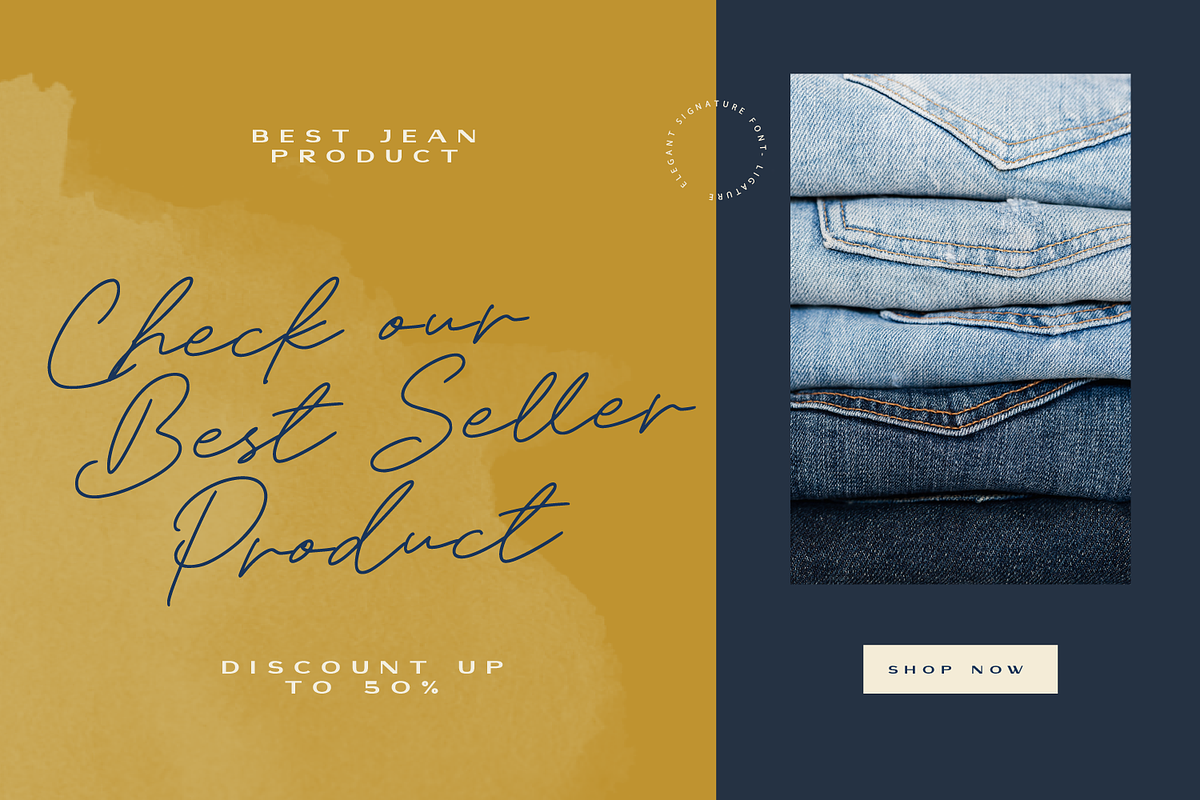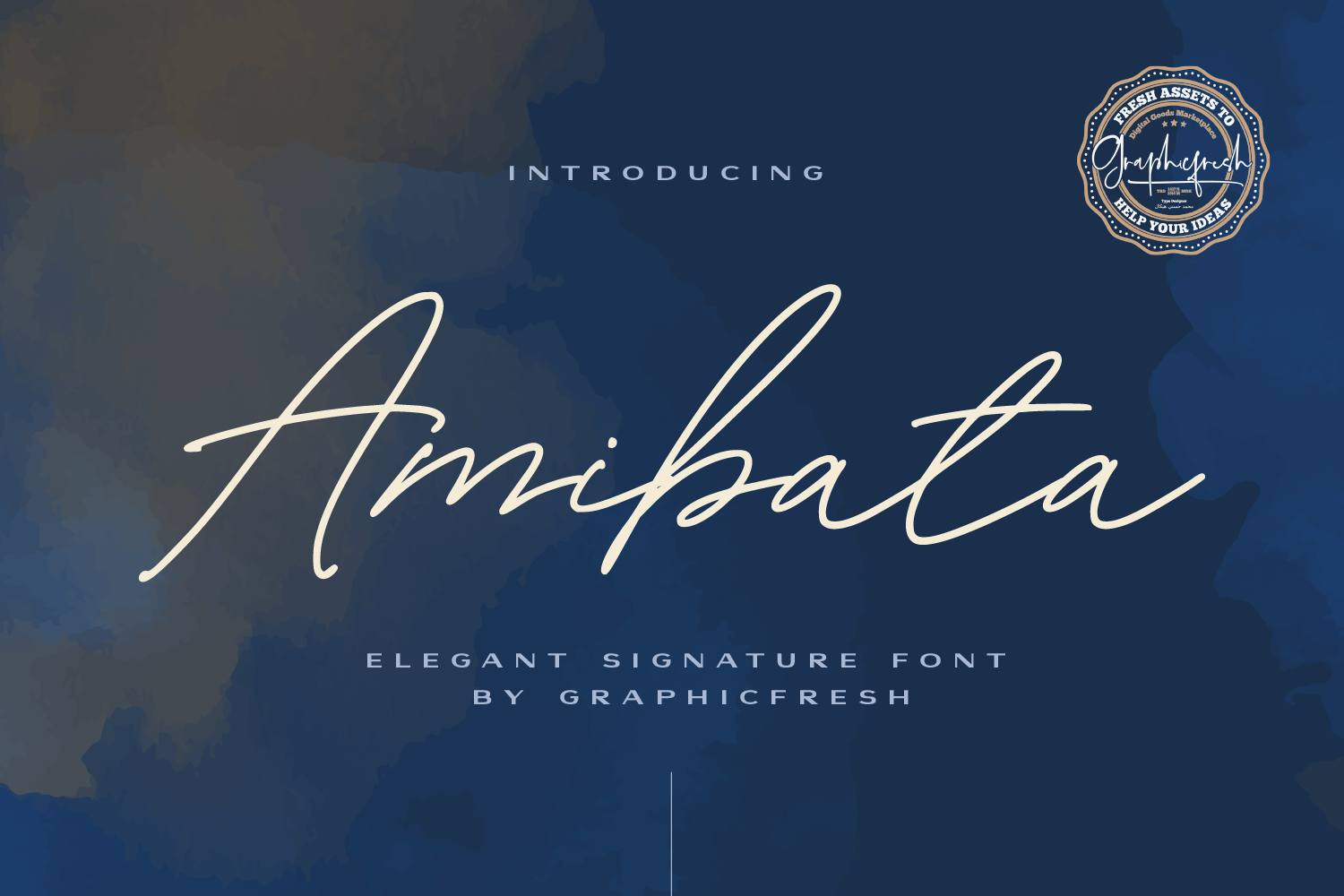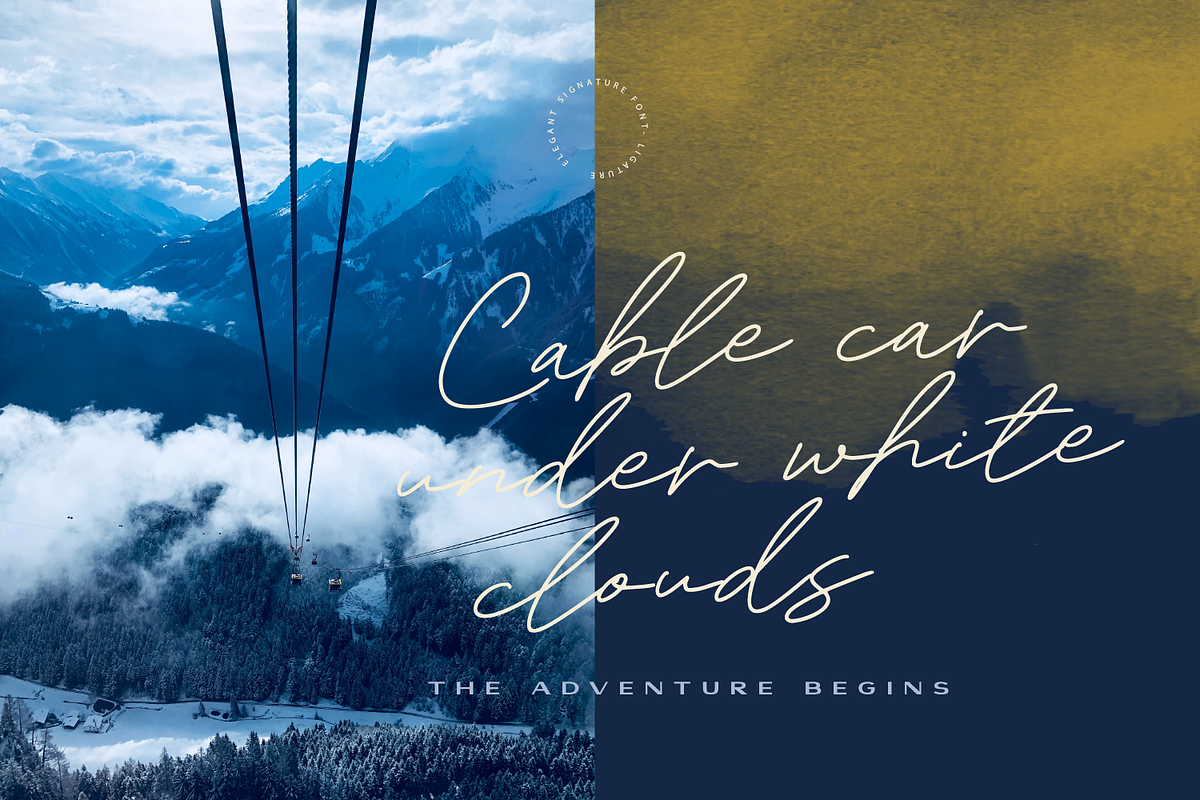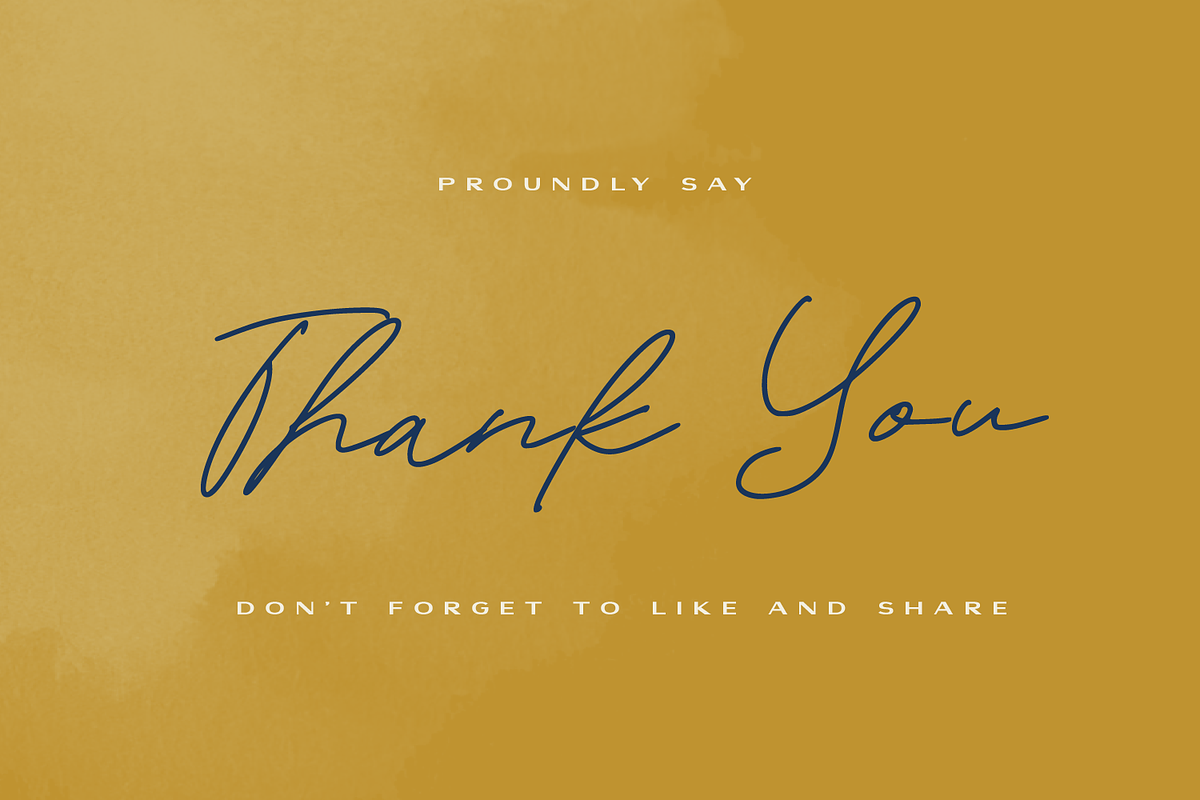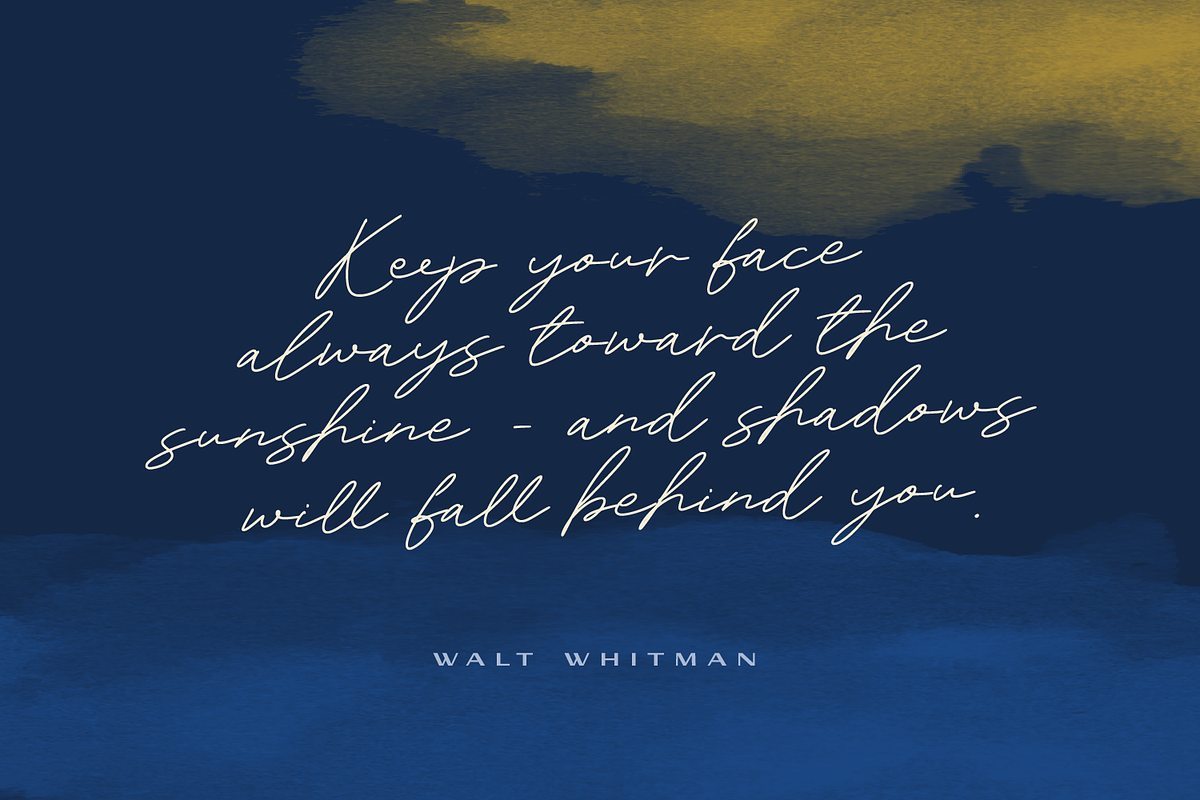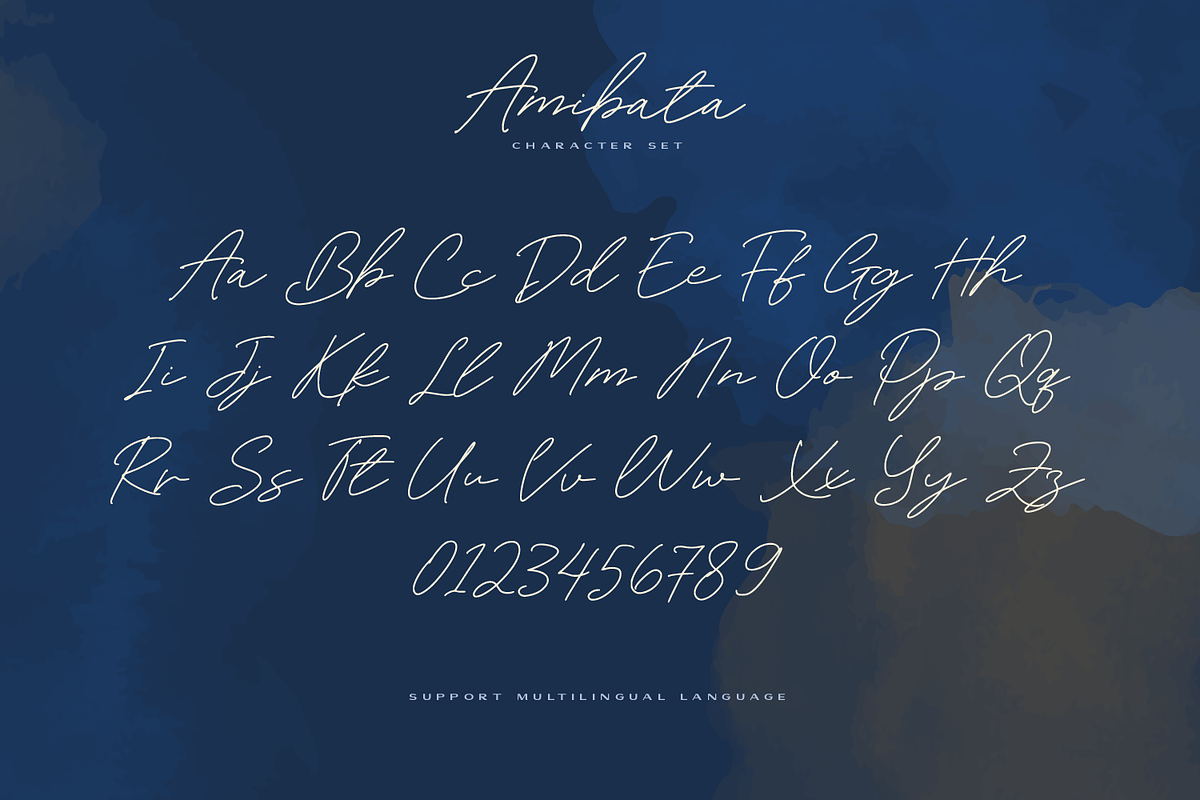
Amibata - Elegant Signature Font
Amibata - Elegant Signature Font. It comes with an elegant and modern style which is perfect to make any design stand out! This font is perfect for branding, wedding invites, magazines, mugs, business cards, quotes, posters, and more.
Amibata Type Features:
- Uppercase -Lowercase
- Suitable for Headlines, Logotypes, Signs, Posters, Letterhead, T-Shirt and many more.
- Support International Language
I absolutely love this font! It is perfect for a signature as well. I am so tired of the fonts out there. They're all the same! And you can't read them. "it's been done, It's been seen" I don't do trendy, This font is classic, evergreen, and goes with everything. Kind of like your favorite little black/navy dress!